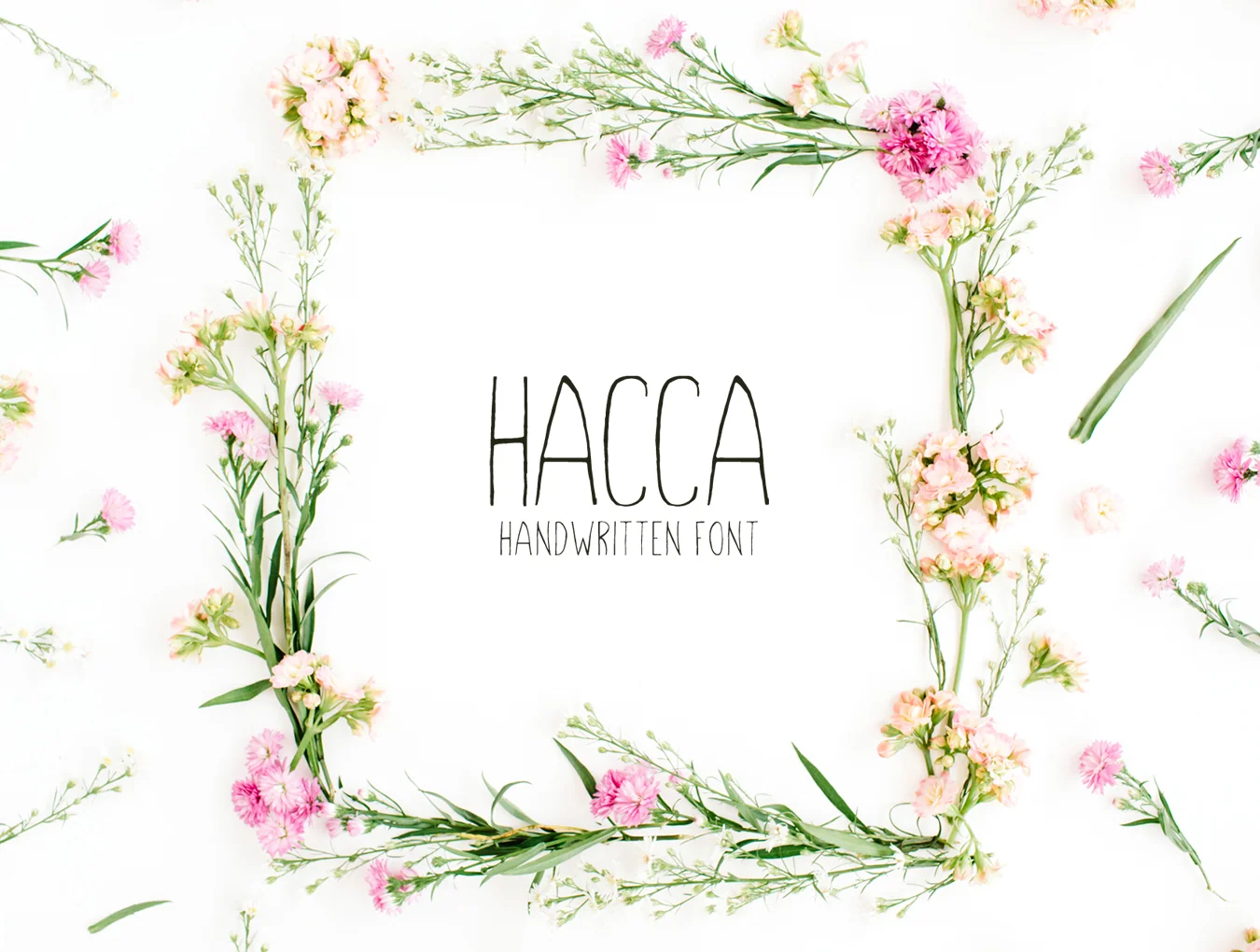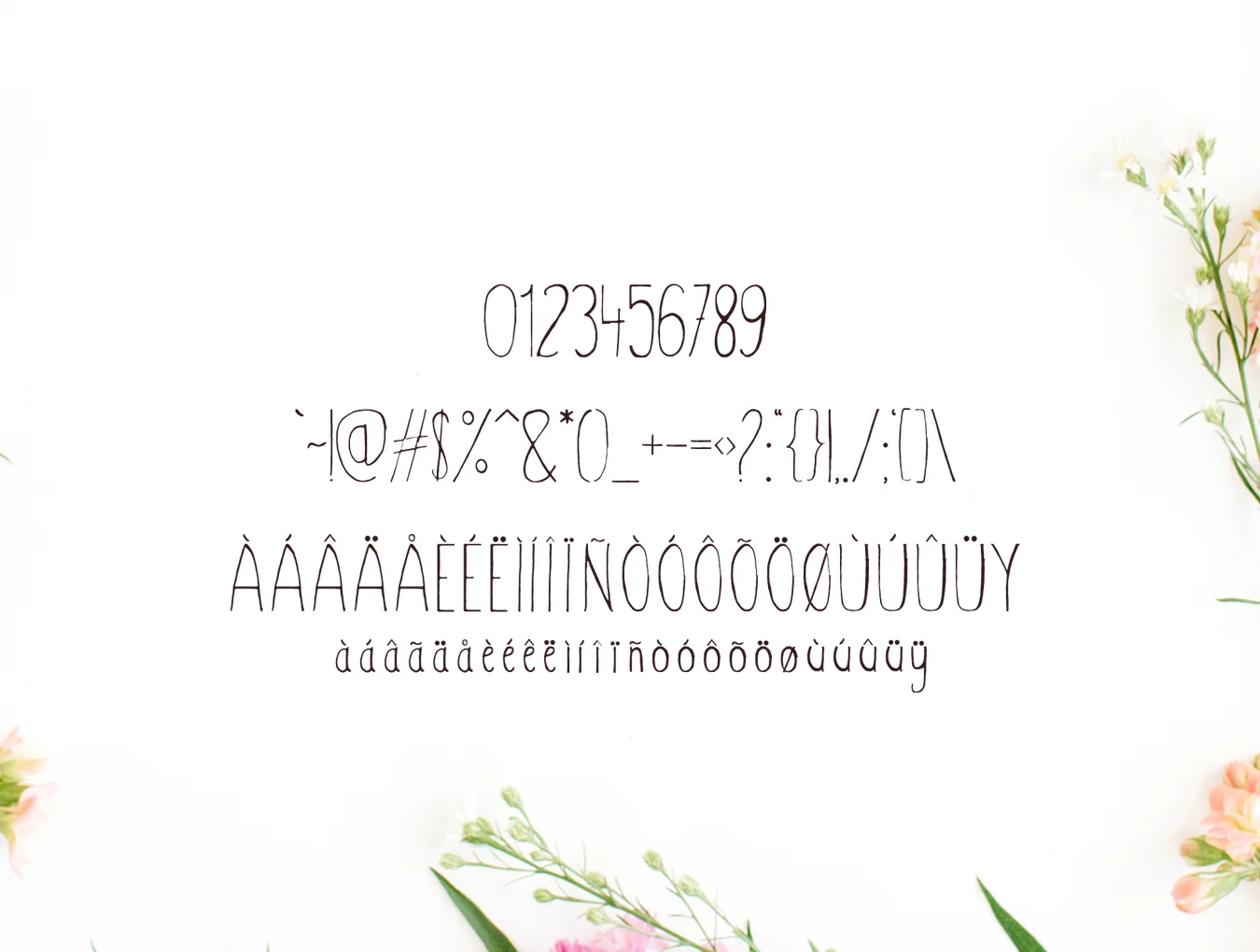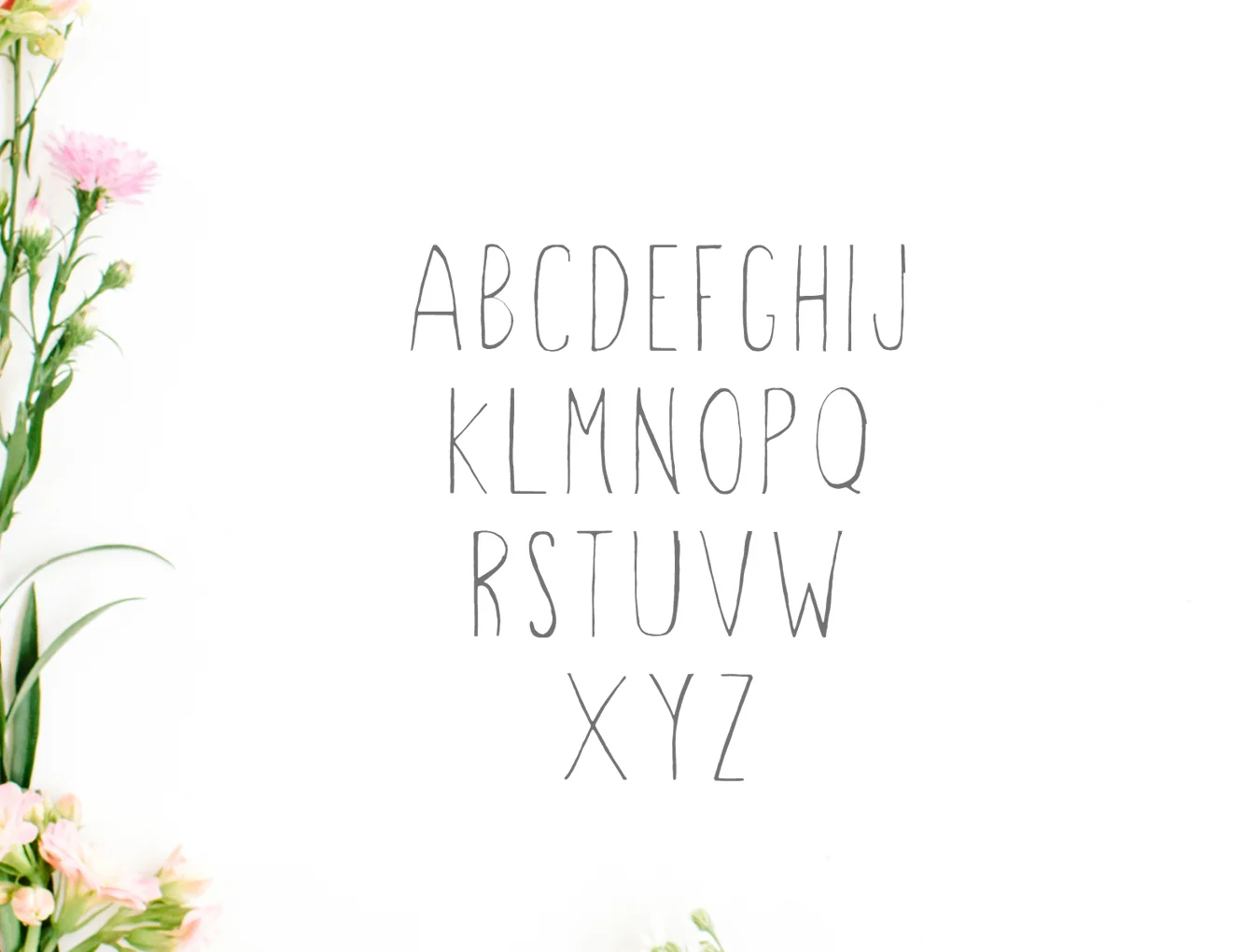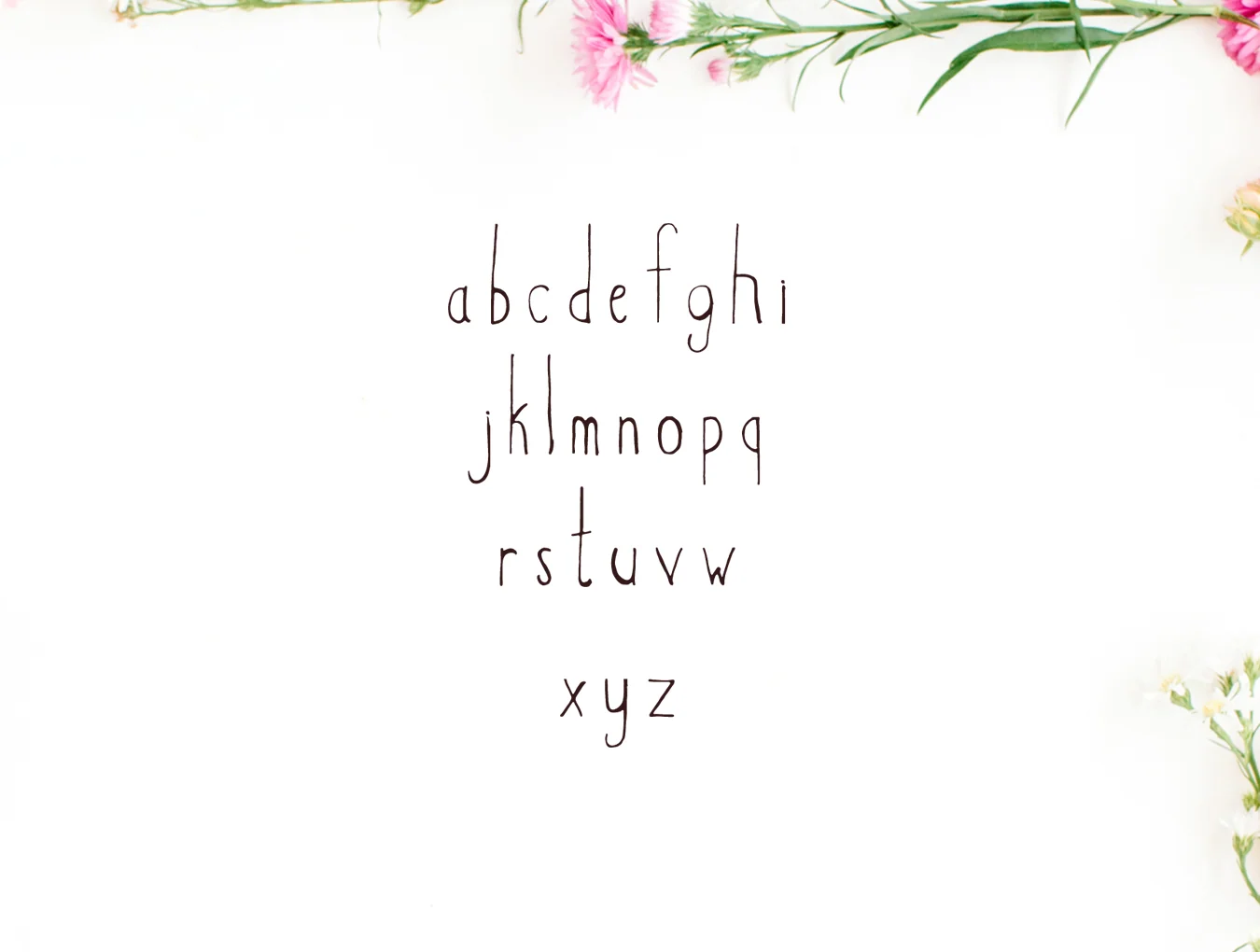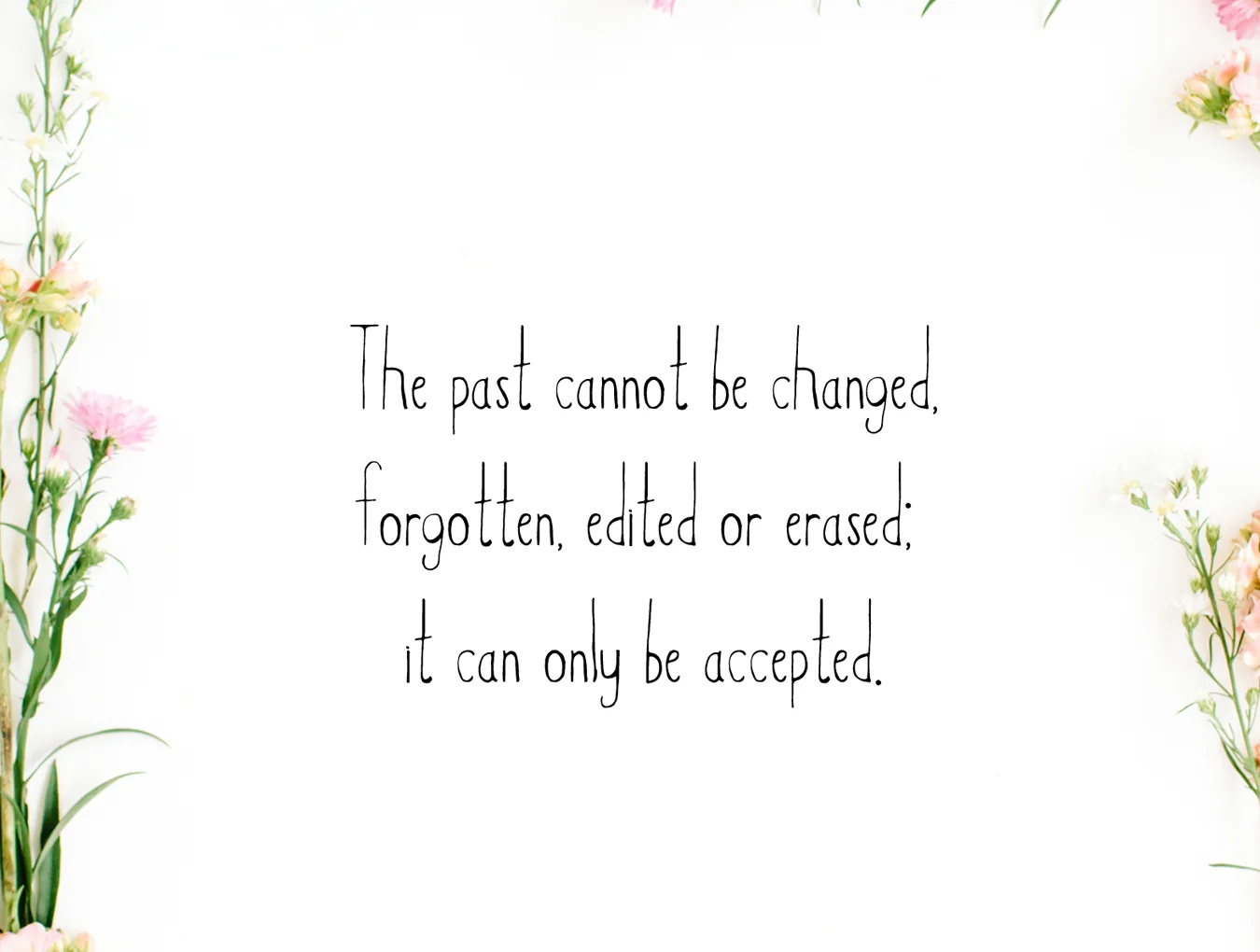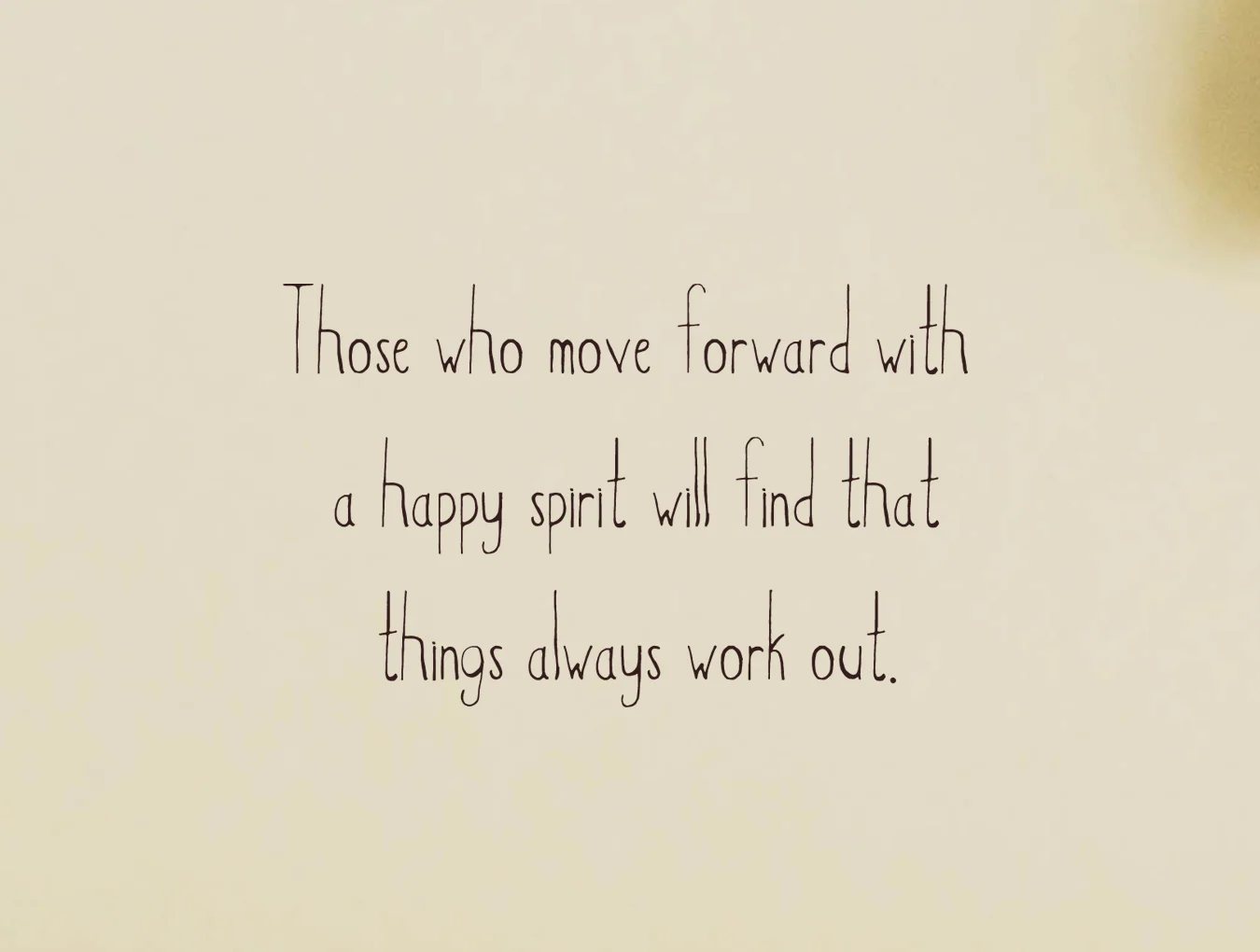
Hacca Handwritten
Hacca Hand-Drawn Sans Serif Typeface
Handwritten-style typeface
Includes 150 glyphs
Standard regular weight
Hacca is a hand-drawn sans serif font featuring uppercase and lowercase letters, numerals, symbols, and alternate characters. It suits logos, quotes, badges, labels, packaging, blogs, websites, headlines, banners, apparel, greeting cards, wedding invitations, and other creative designs.